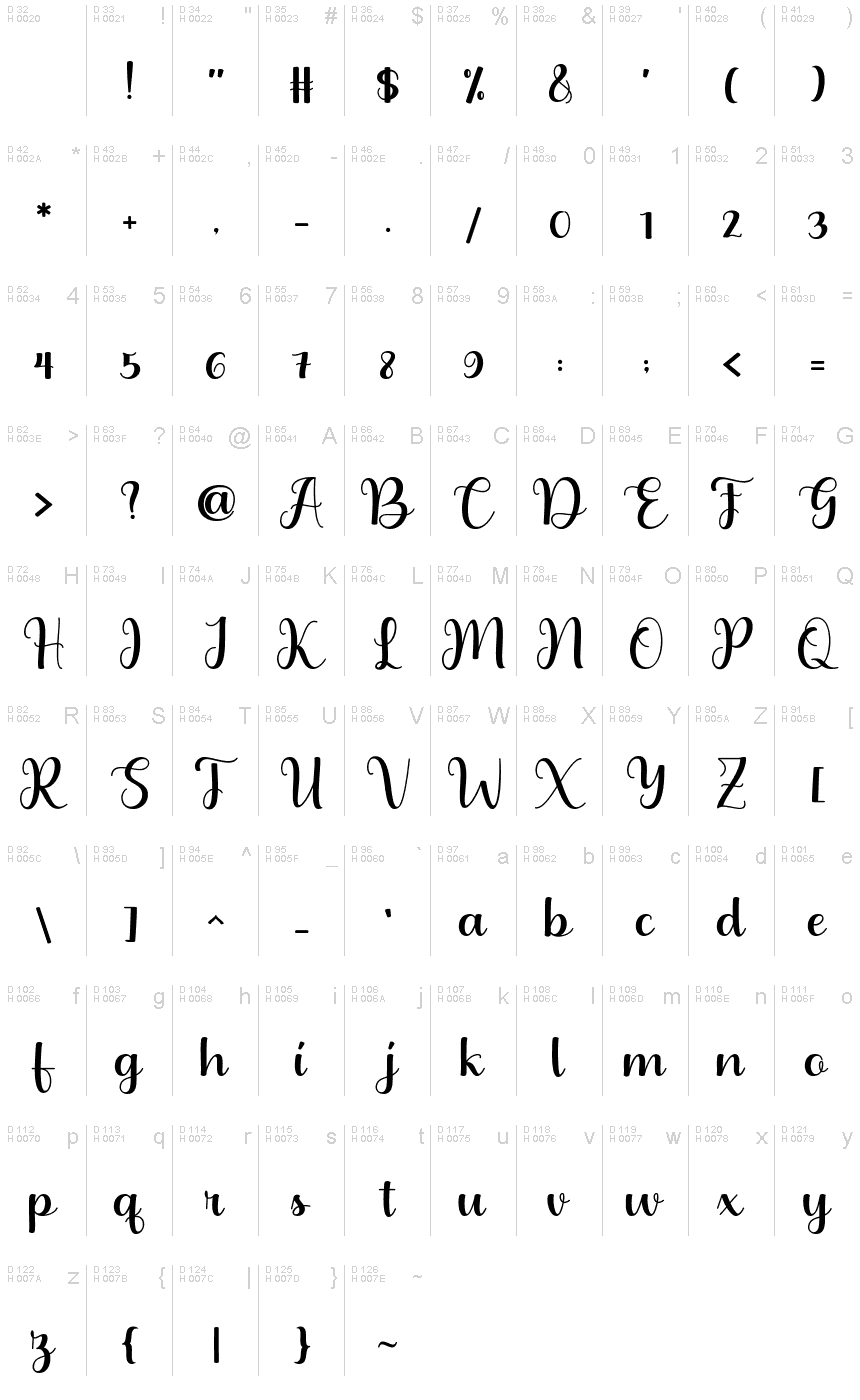
AudigiaScript
Audigia Script, designed by Cut Story, is an exquisite calligraphy font that adds a touch of elegance and sophistication to any project. With its flowing strokes and graceful curves, this font is perfect for wedding invitations, luxury branding, and feminine product packaging. The semi-bold font style of Audigia Script exudes confidence and modernity, making it an excellent choice for fashion magazines, beauty blogs, and lifestyle websites. Whether you're designing a logo or creating eye-catching social media graphics, Audigia Script will effortlessly elevate your projects with its timeless charm.